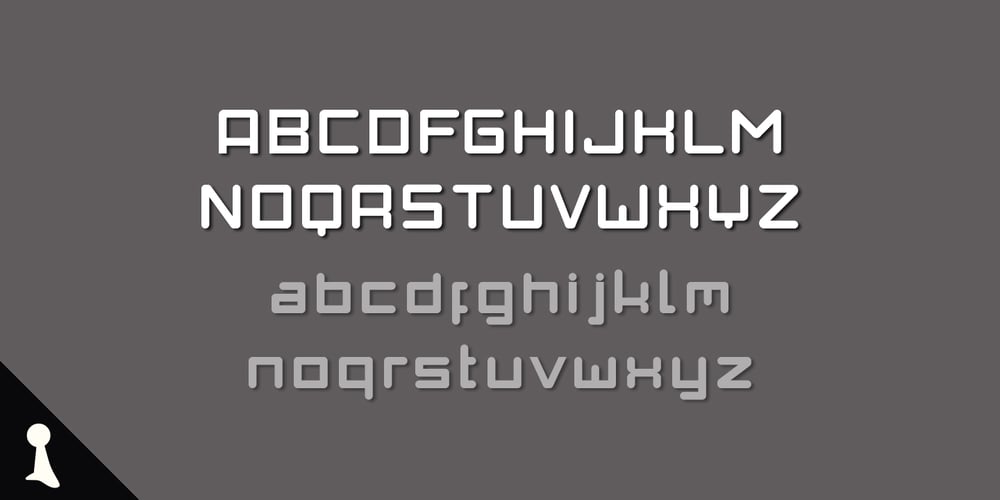
DM PopCap
DM PopCap font
DM PopCap Font Family was designed by Drew Maughan and published by DM Founts. DM PopCap contains 2 styles and family package options. DM PopCap is the third typeface released by DM Founts. It was created to accompany a 2013 LEGO-based project, which itself was inspired by the music video for Scream by Michael and Janet Jackson.I had to create the typeface in order to make title cards, as no such typeface appeared to exist. Although the resulting typeface looks similar to the text appearing in the music video, I also set myself the challenge of creating the remaining characters of the alphabet, as well as others that some would find useful.As suggested by the music video, the typeface would be ideal for a futuristic or technological setting, particularly concerning space travel. In the project I had paired this typeface with Myriad Pro.As with my other offerings, this font is intended for use heading or standalone title use – but it also appears to work on its own for small paragraphs of text.